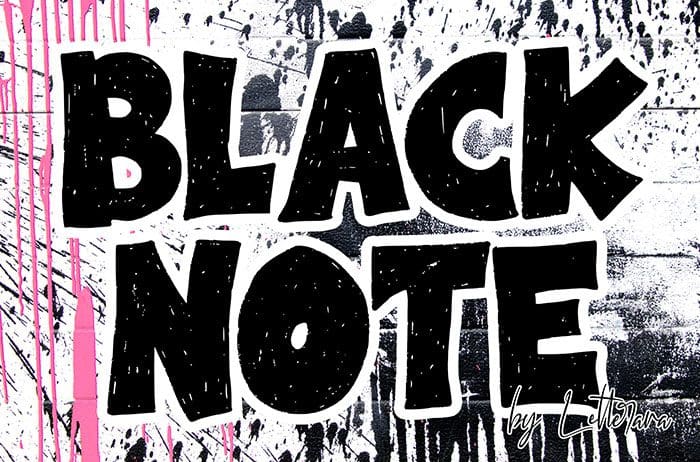
Black Note brush font is a fun and strong font with a fresh feel. Get inspired by it and use it for any design projects that need a unique twist. Designed this font by Thomas Aradea. You can also search more freeĀ Brush Fonts. Thanks!